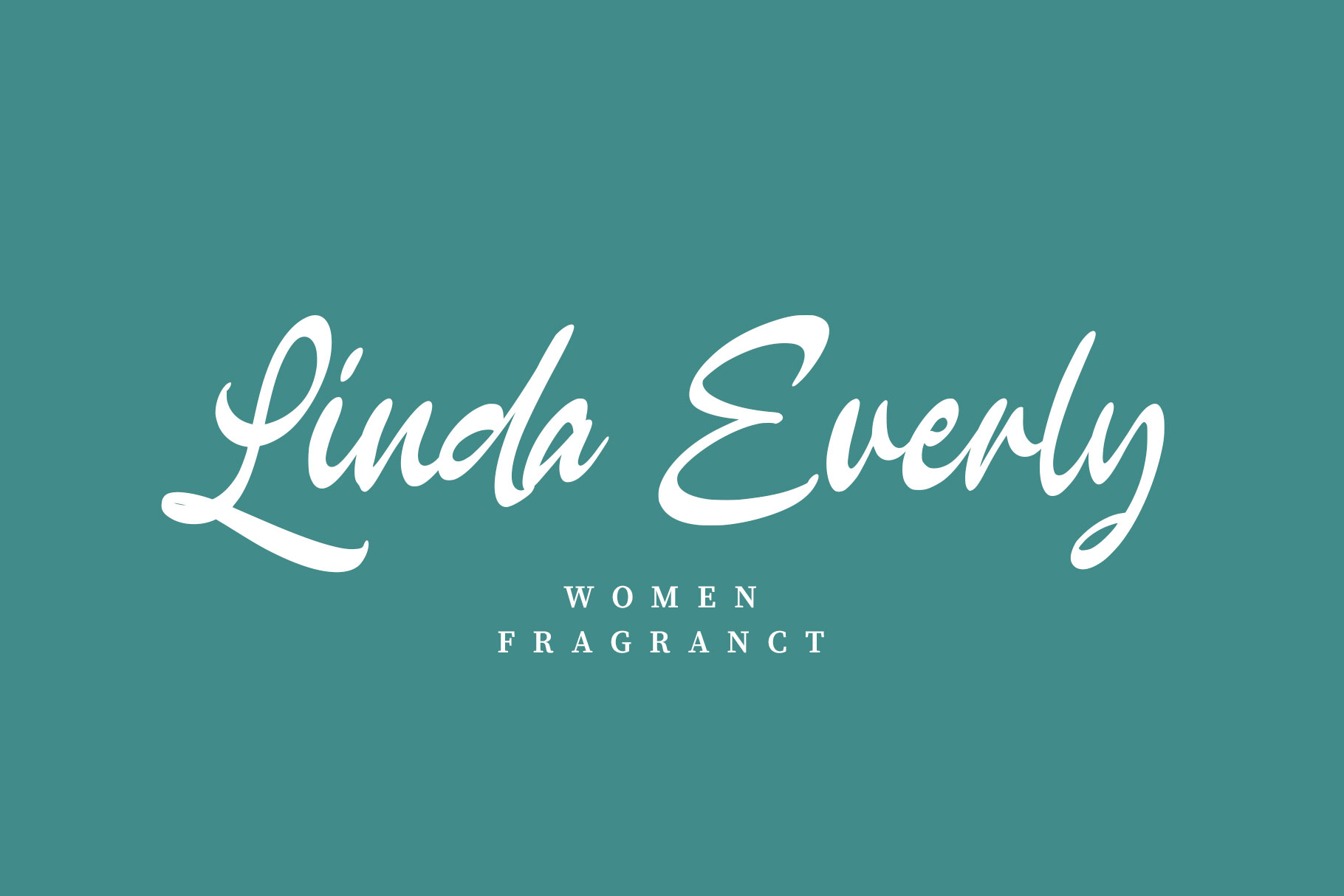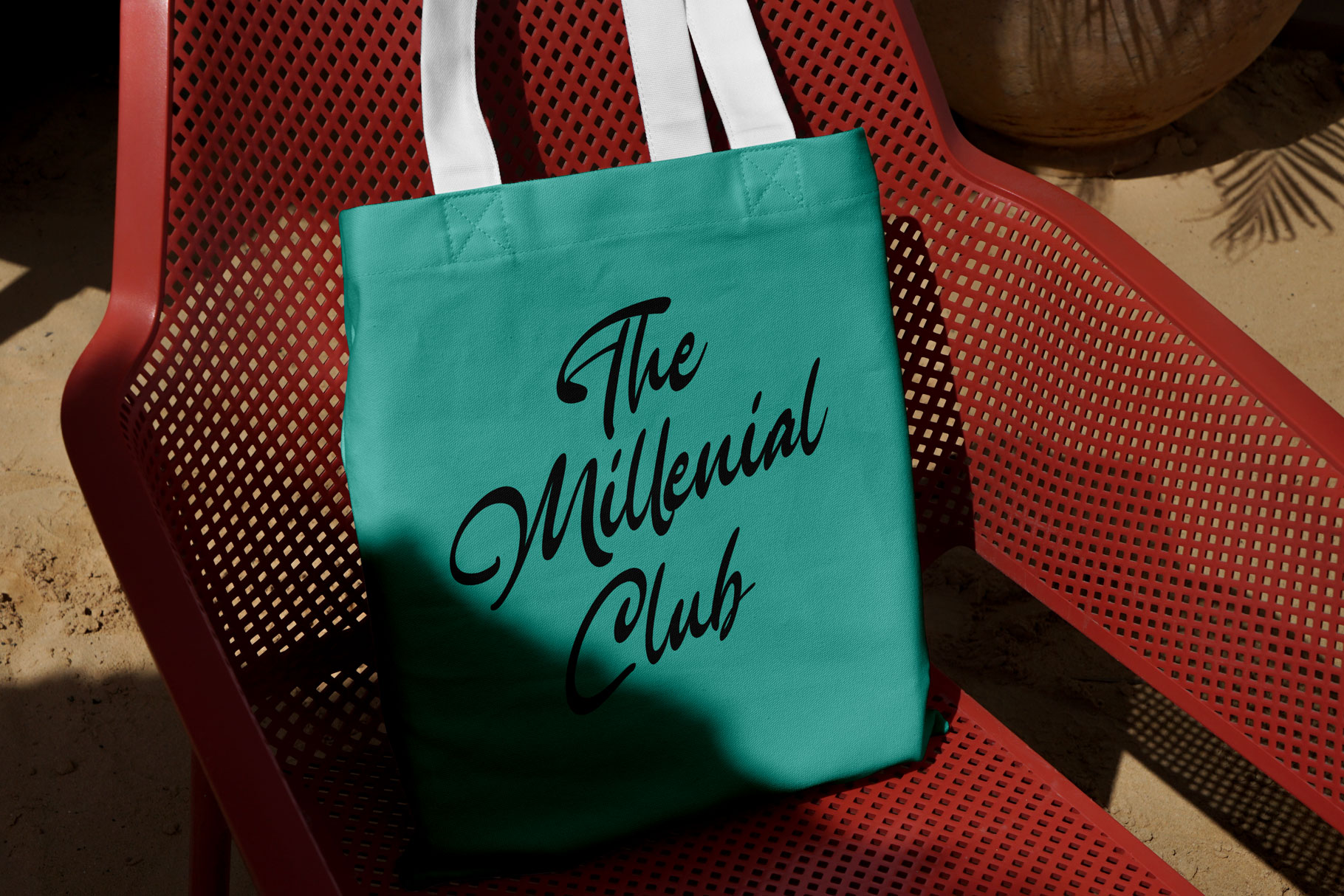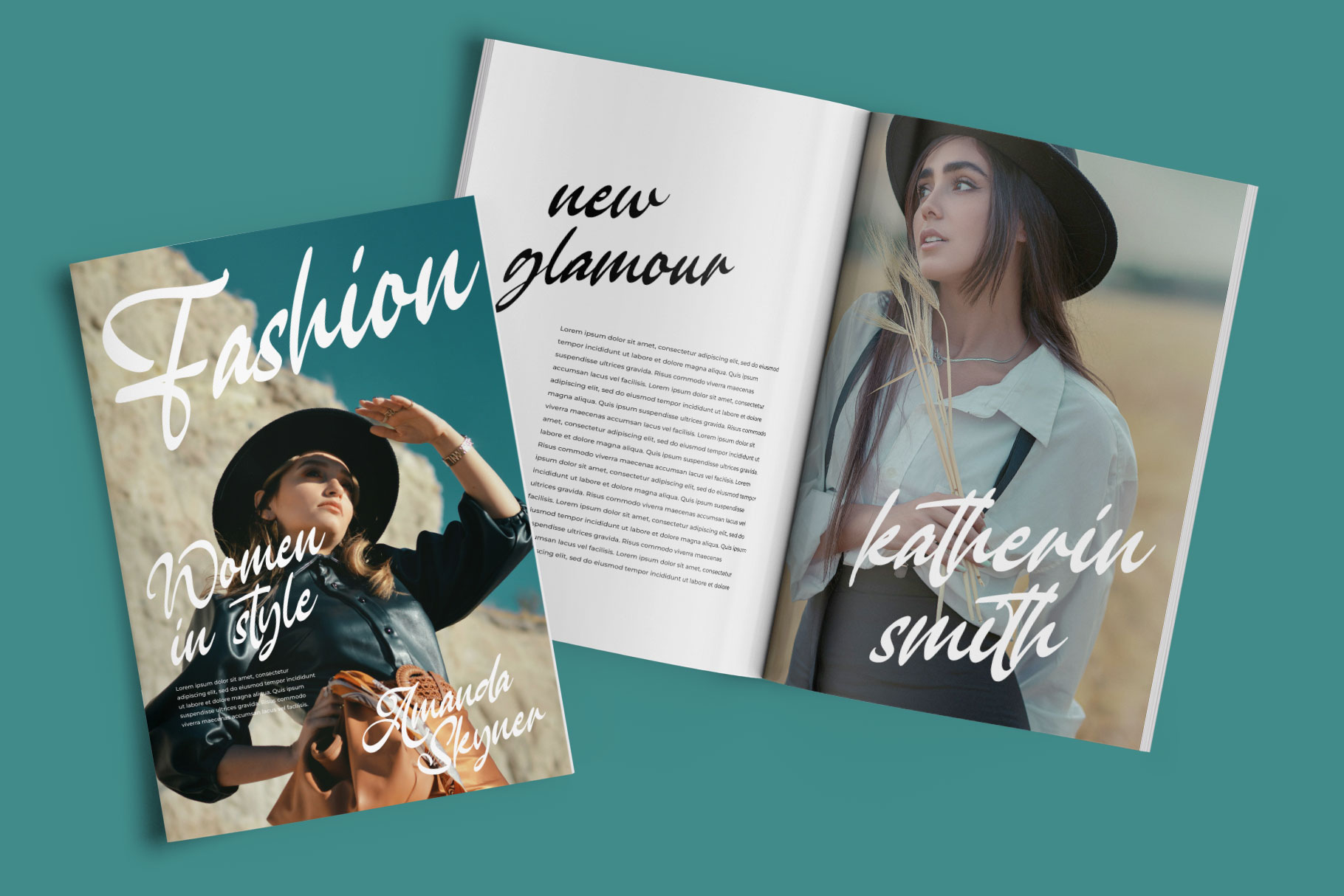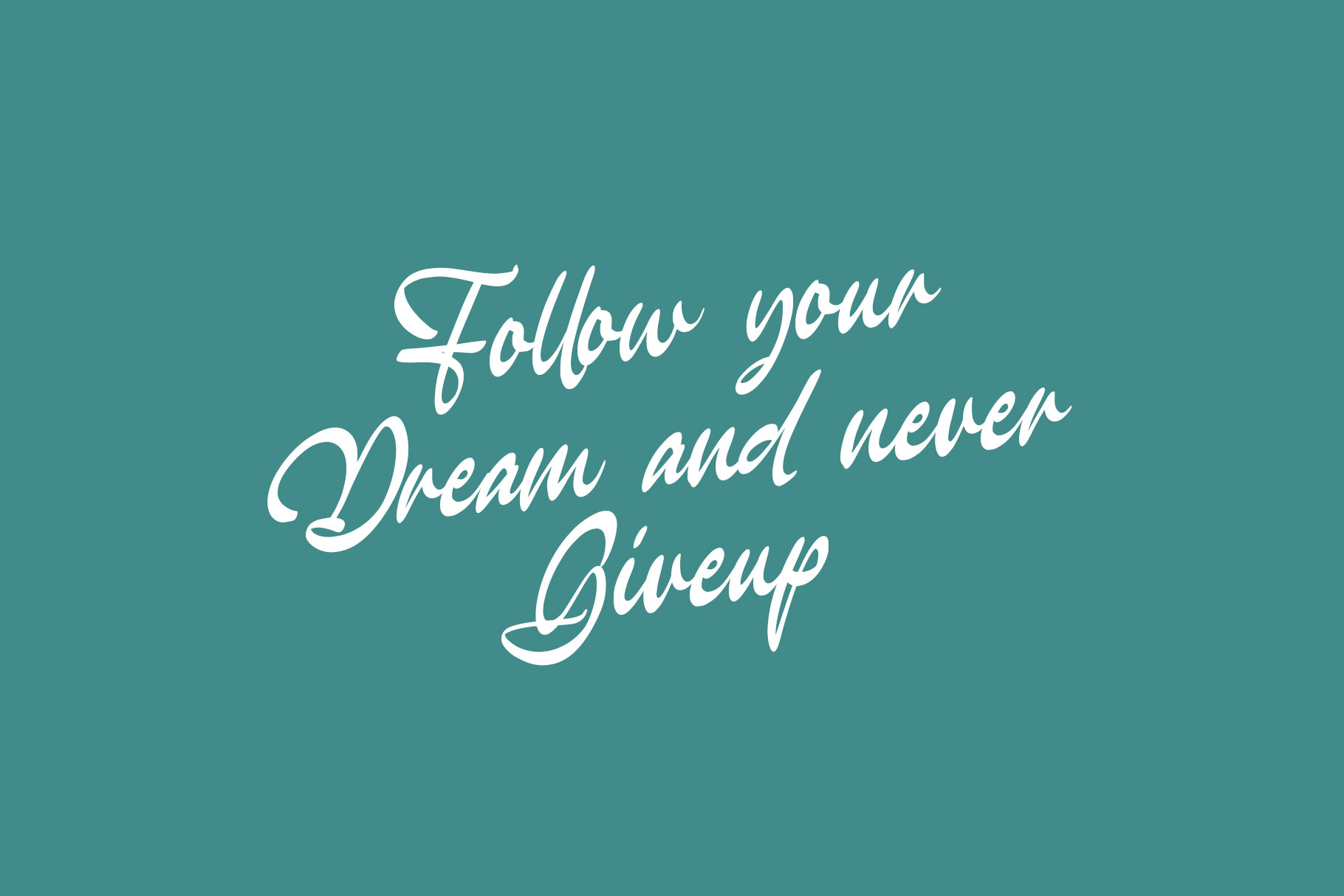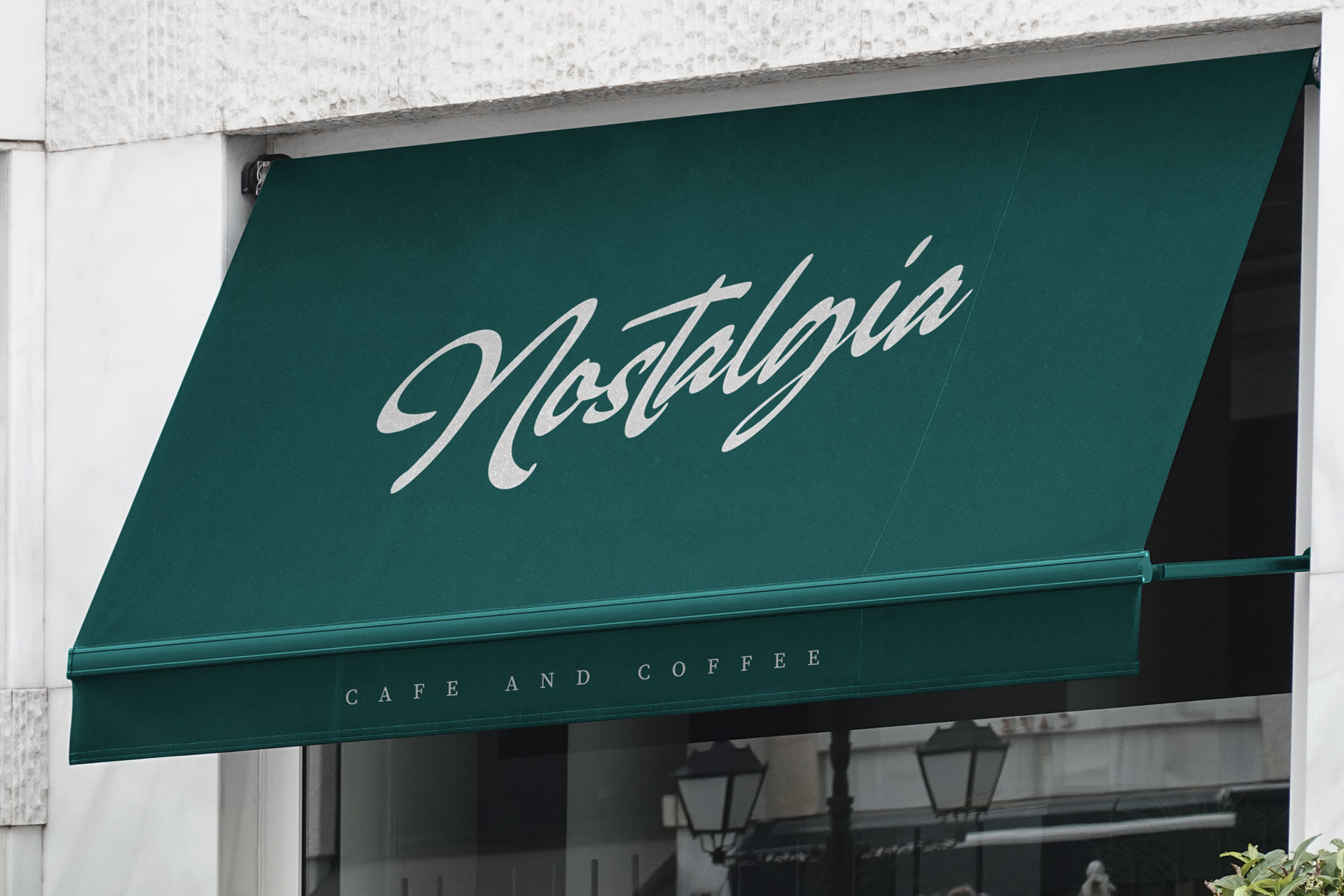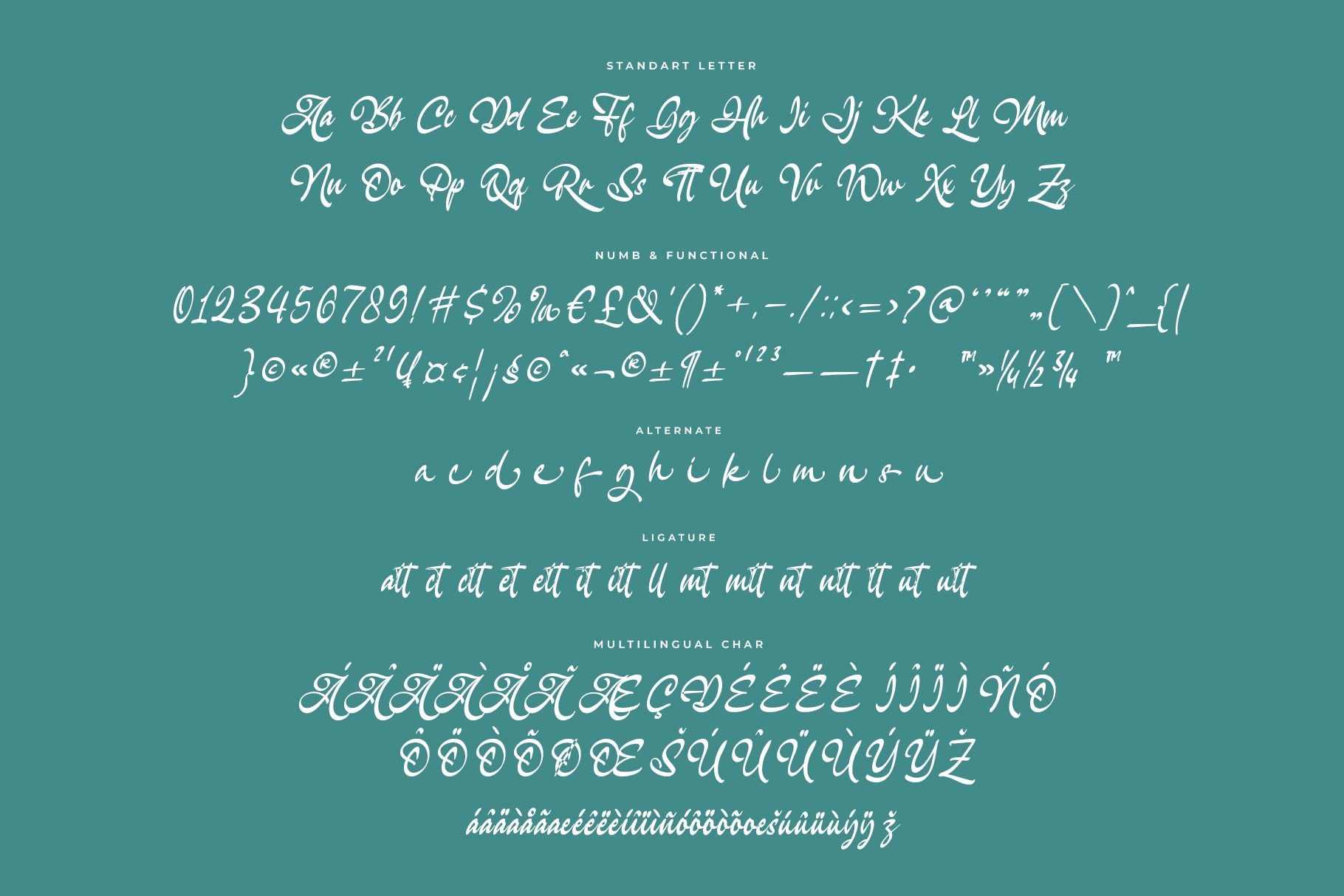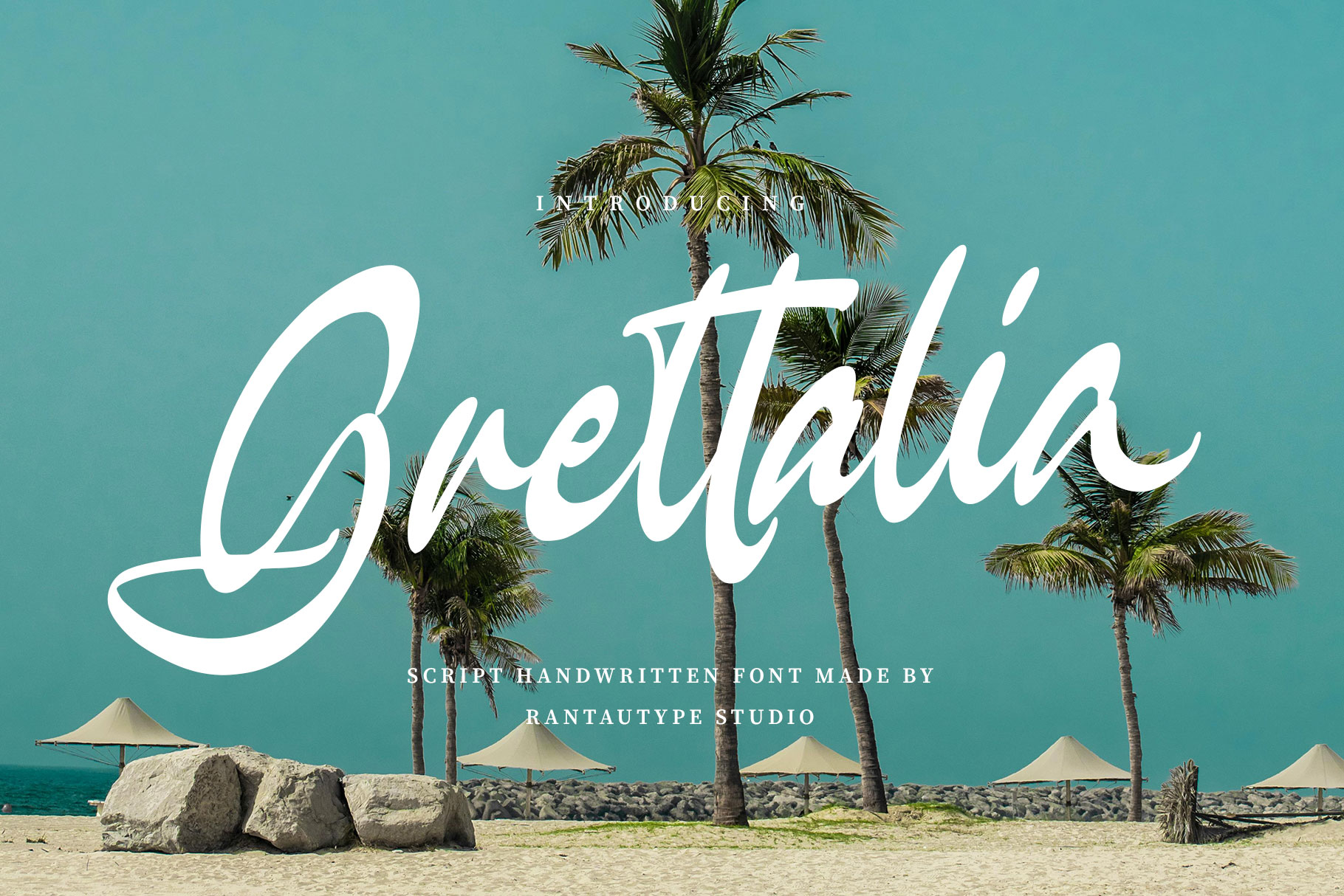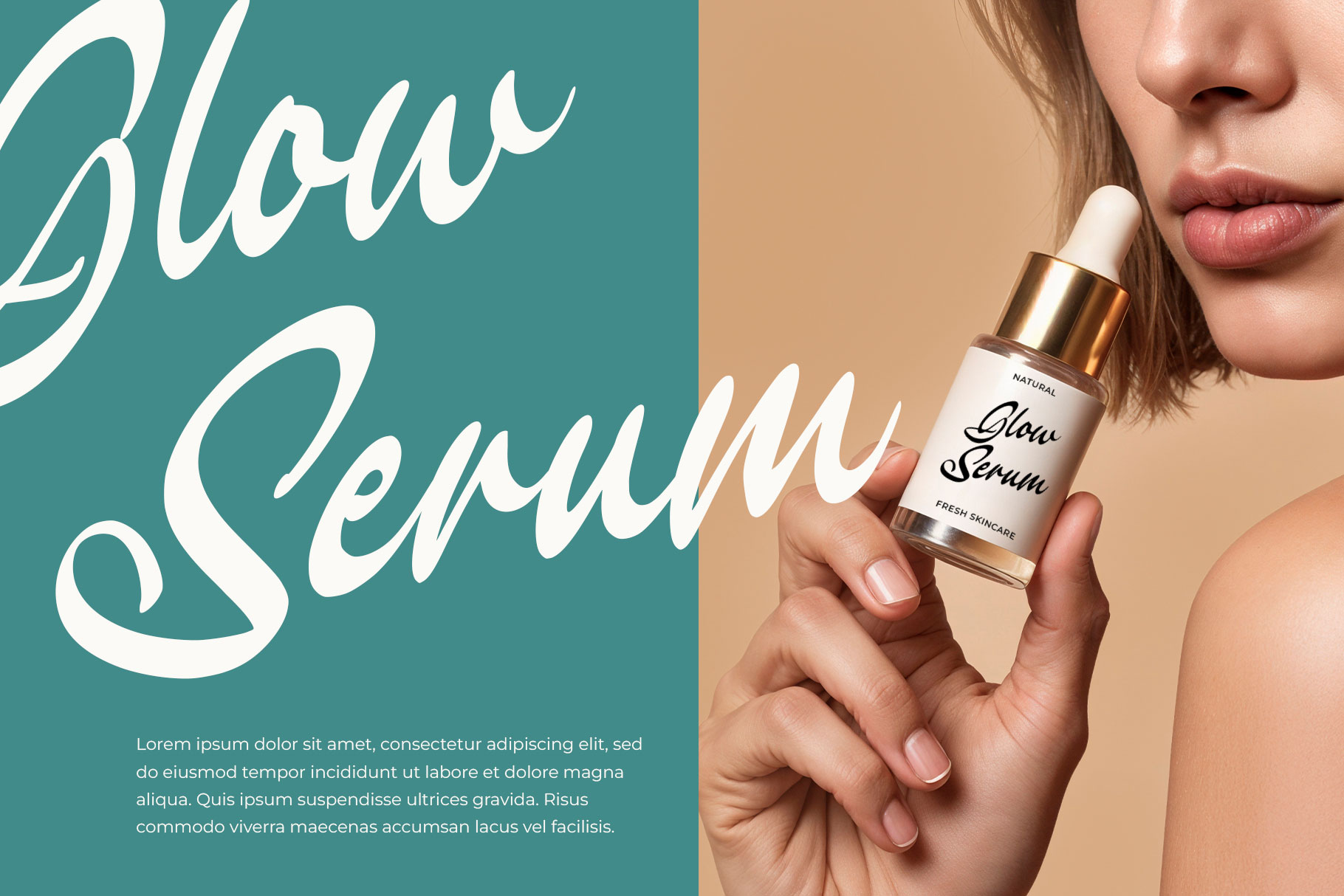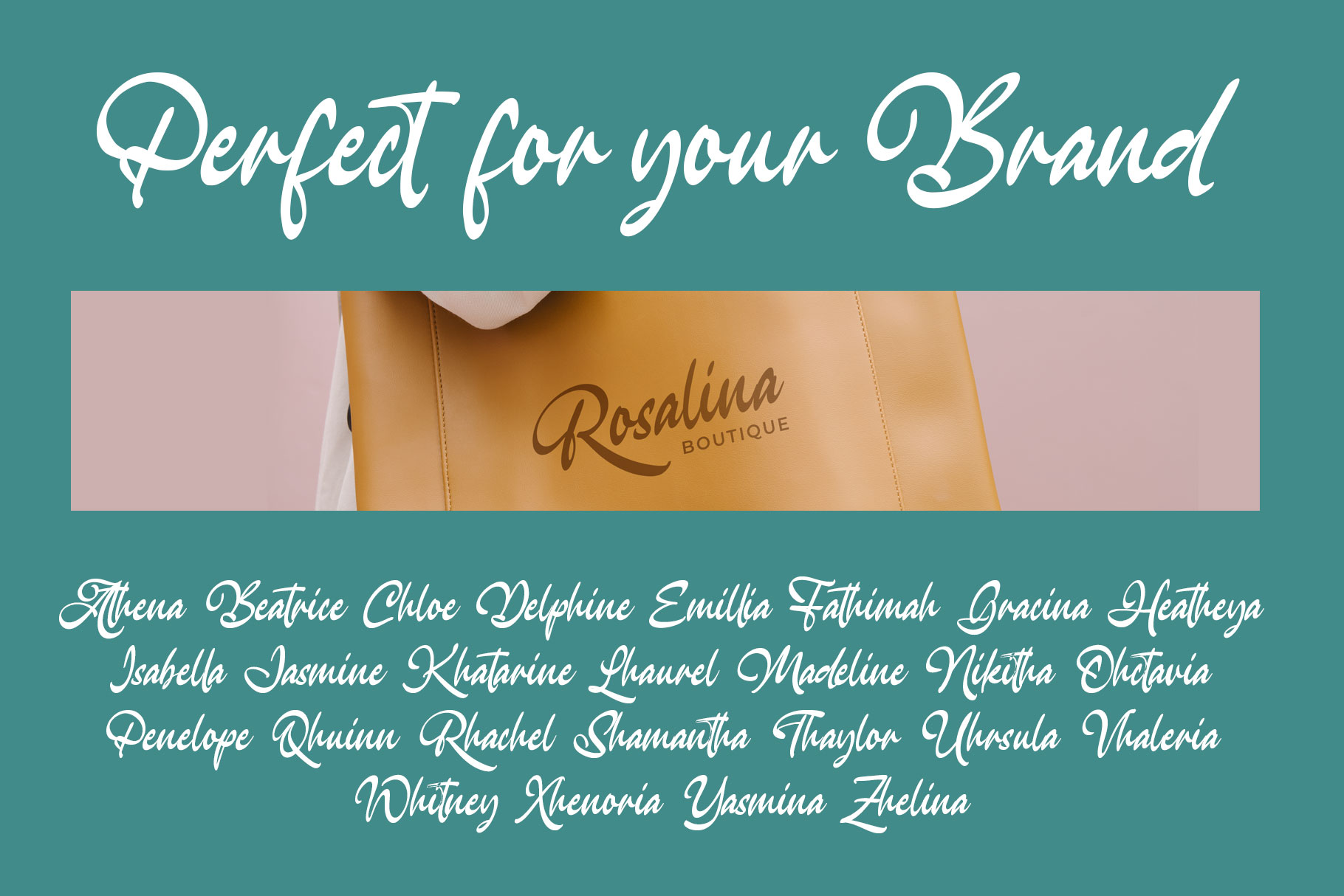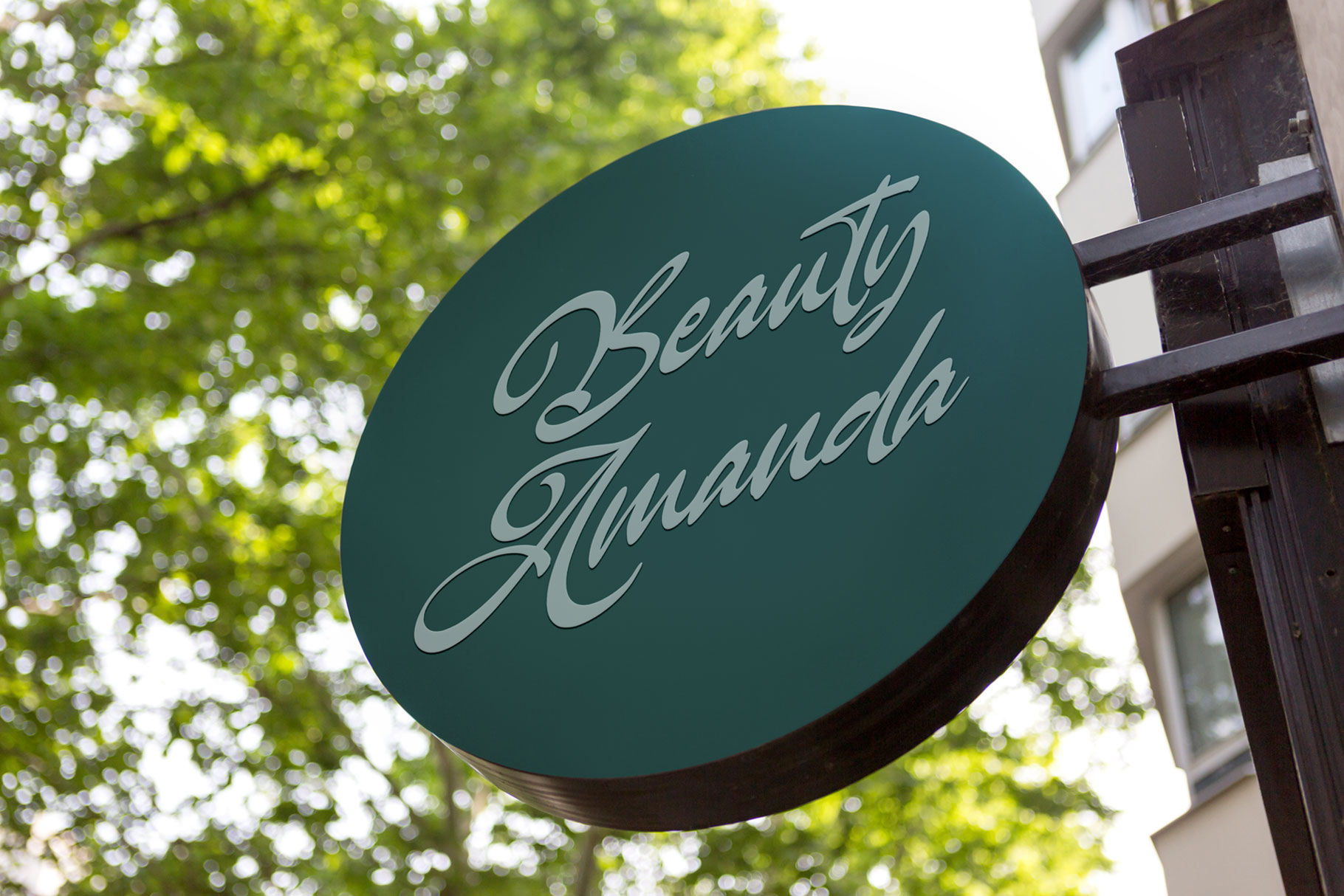
Grettalia Script Handwritten Font
Grettalia is script handwritten font made by rantautype studio. Grettalia is a perfectly choice for any creative endeavor, creating, modern, lifestyle design such as logotype, title, cover, branding, invitations, wedding designs, display and magazine, social media posts, advertisements, printed quotes, product packaging, corporate brand, product designs, labels, photography, watermarks, special events and any other project with elegant touch.